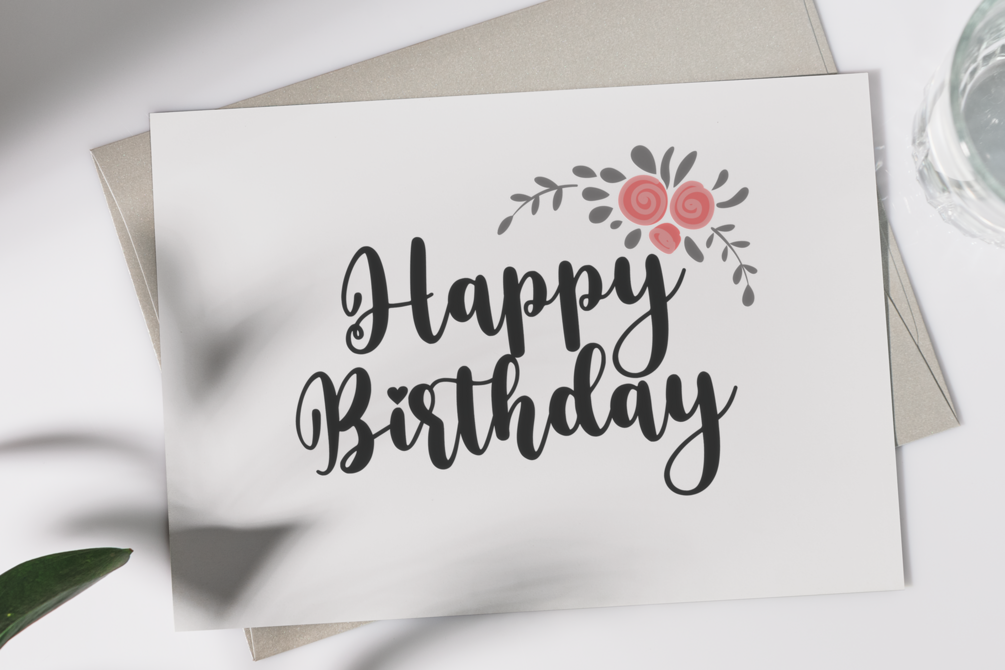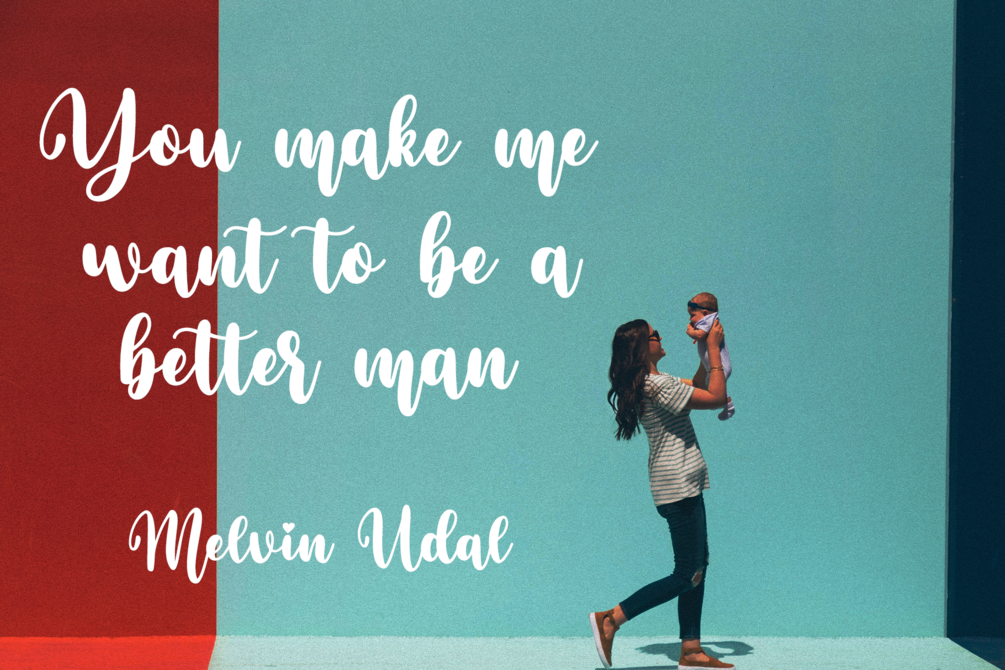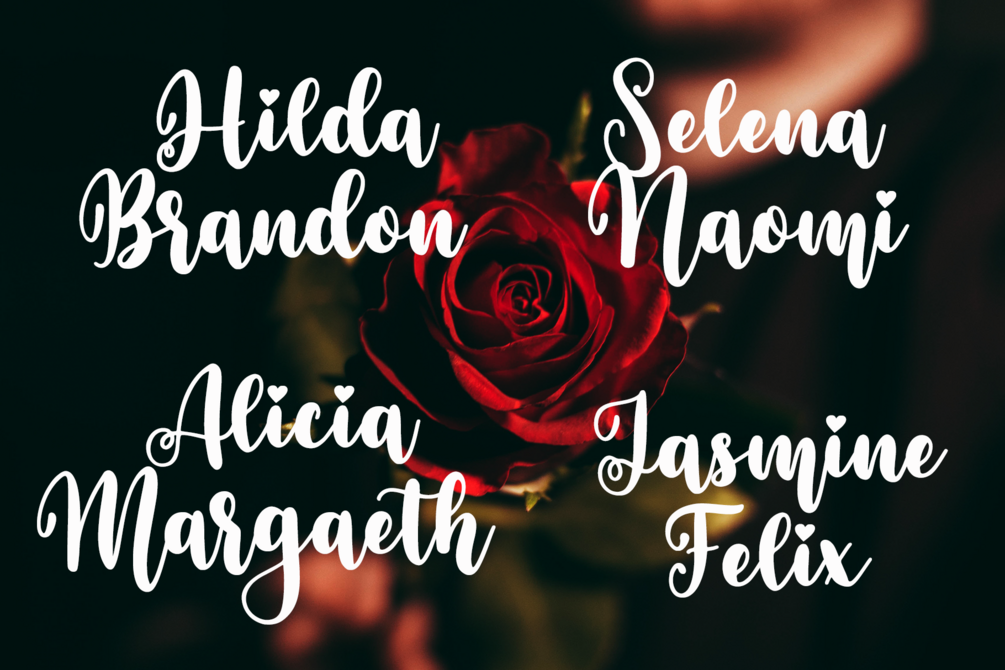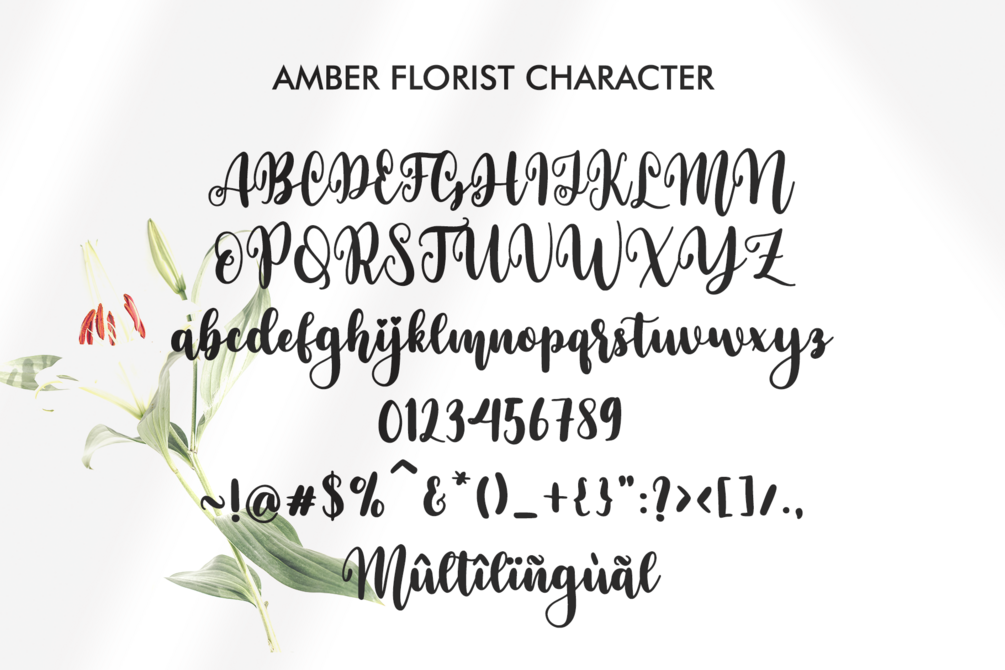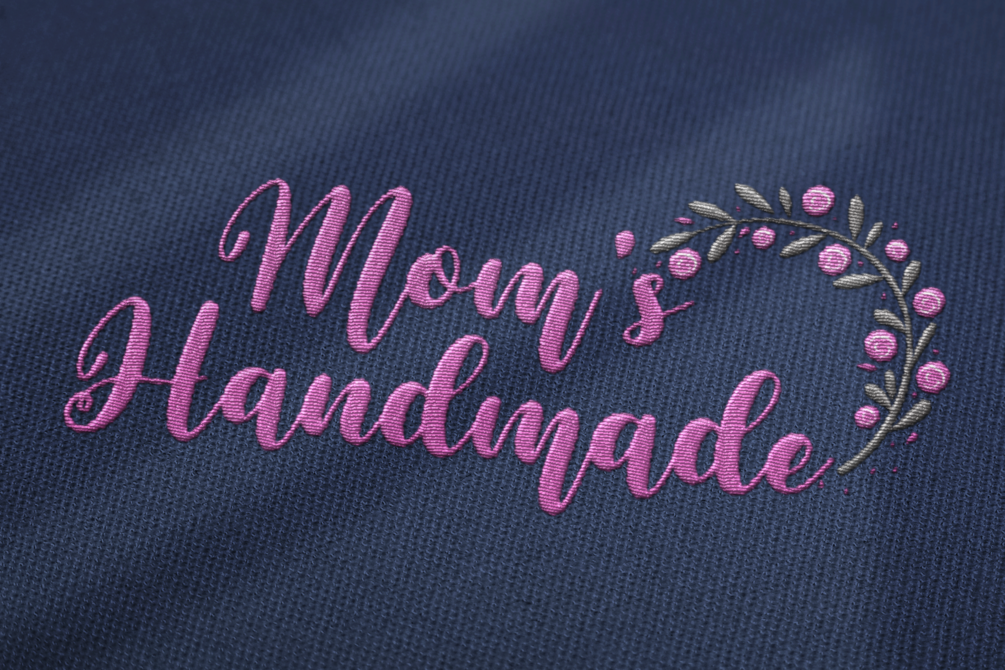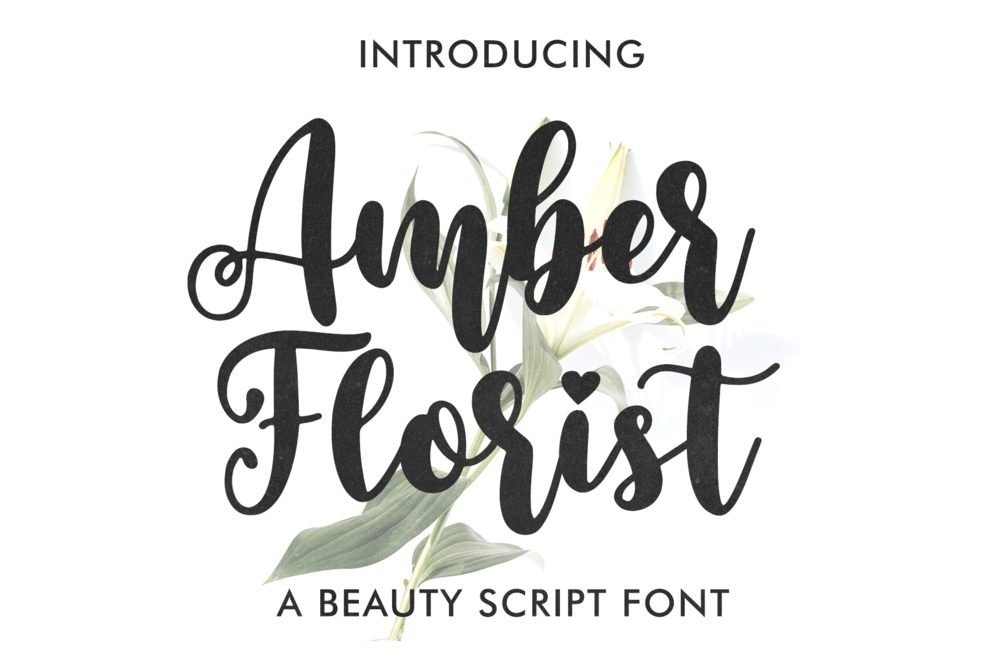
Amber Florist
Amber Florist is a bold script font with distinct handwritten style. This assertive calligraphy script is expertly crafted to make your designs stand out instantly β perfect for wedding invitations, love-themed projects, custom mugs, Christmas cards, posters, branding, and more.
- Ligatures & Alternates
- Multilingual Support